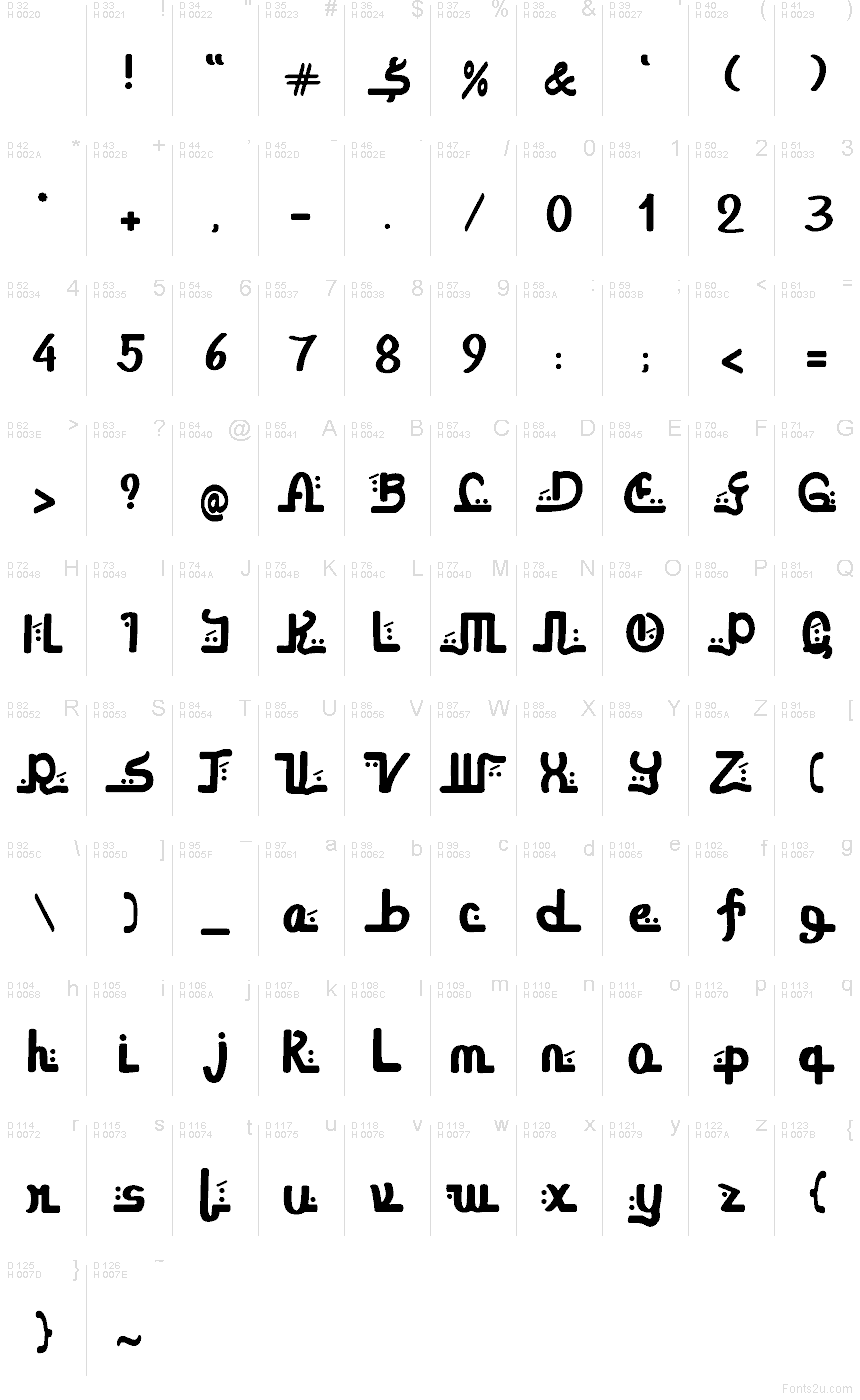
Arabinta
Arabinta font by Dhabee Studio is a free foreign decorative faux Arabic typeface that instantly signals “Middle Eastern vibe” without needing actual Arabic script. Thick, inky strokes flow into one another like a single painted line, while playful dots and rounded curves give it a friendly, approachable feel. The letters pack tightly, creating a continuous ribbon of black that reads clearly even from a distance.
Using Arabinta, you can bring themed identities to life for hookah lounges, Middle Eastern restaurants, food trucks, festival posters, game titles, and travel promos. This free font shines in bold logotypes and headlines where you want a strong cultural hint with a fun twist. Pair Arabinta with a clean geometric sans in smaller text to keep menus, flyers, and social posts readable while the main wordmark carries all the flavor.